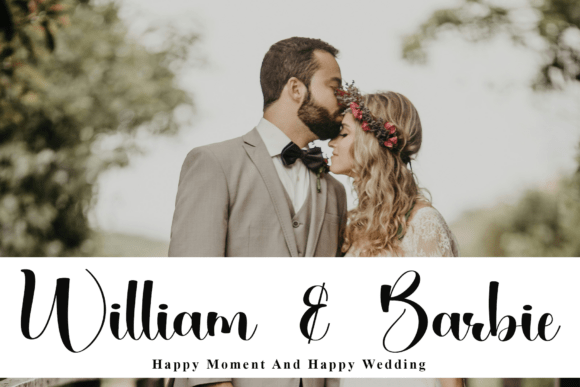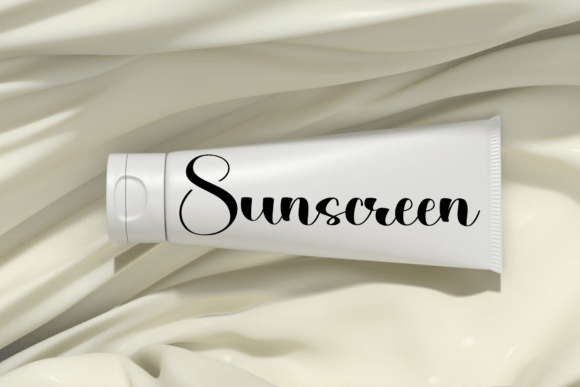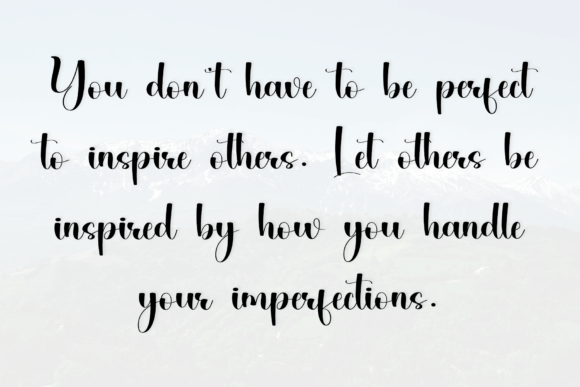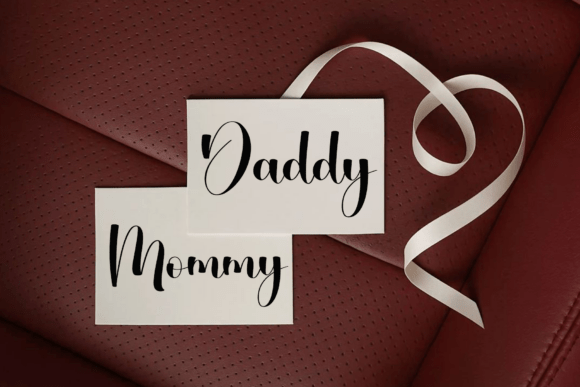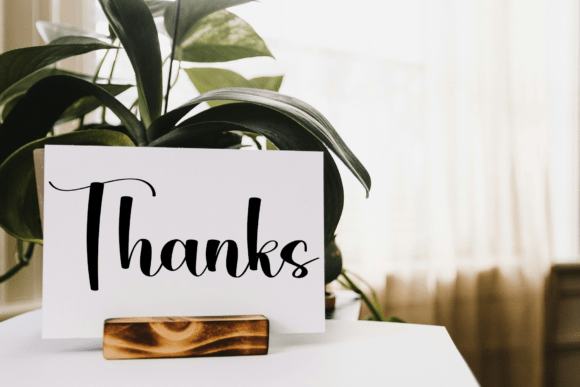
Bride Font: The Timeless Handwritten Font for Stunning Designs
Are you a designer or crafter looking for a font that can add a touch of elegance and sophistication to your designs? Look no further than the Bride Font! This lovely and timeless handwritten font is perfect for creating eye-catching logos, branding, and quotes that will leave a lasting impression.
What Makes Bride Font So Special?
The Bride Font is a unique and beautiful handwritten font that is sure to make your designs come alive. Every letter has a distinctive and elegant touch that sets it apart from other fonts. The font’s timeless design ensures that it will never go out of style, making it a great investment for designers and crafters who want to create stunning designs that will stand the test of time.
The Bride Font is the perfect choice for creating eye-catching logos, branding, and quotes. Its elegant and sophisticated design makes it ideal for businesses and individuals who want to create a professional and stylish image. Whether you’re designing a logo for a wedding planning company, a fashion brand, or a lifestyle blog, the Bride Font is sure to impress.
Unique and Beautiful Touch
One of the standout features of the Bride Font is its unique and beautiful touch. Every letter is carefully crafted to ensure that it has a distinctive and elegant feel that will add a touch of sophistication to your designs. The font’s beautiful touch makes it perfect for creating designs that require a personal and human touch, such as wedding invitations, greeting cards, and quotes.
Why Choose Bride Font?
So why choose the Bride Font over other fonts? Here are just a few reasons:
• Timeless design: The Bride Font has a timeless design that will never go out of style, making it a great investment for designers and crafters.
• Unique and beautiful touch: Every letter has a distinctive and elegant touch that sets it apart from other fonts.
• Perfect for logos, branding, and quotes: The font’s elegant and sophisticated design makes it ideal for creating eye-catching logos, branding, and quotes.
Tips and Tricks for Using Bride Font
Here are some tips and tricks for using the Bride Font:
• Use it for headlines and titles: The Bride Font is perfect for creating eye-catching headlines and titles that will grab attention.
• Pair it with other fonts: The Bride Font pairs well with other fonts, such as sans-serif fonts, to create a stylish and sophisticated design.
• Experiment with colors and textures: The Bride Font looks great in a variety of colors and textures, so don’t be afraid to experiment and find the perfect combination for your design.
Font Name Bride Font
The Bride Font is a lovely and timeless handwritten font that is perfect for creating eye-catching logos, branding, and quotes. Its unique and beautiful touch makes it a standout font that will add a touch of elegance and sophistication to your designs. Whether you’re a designer or crafter, the Bride Font is a great choice for anyone looking to create stunning designs that will leave a lasting impression.